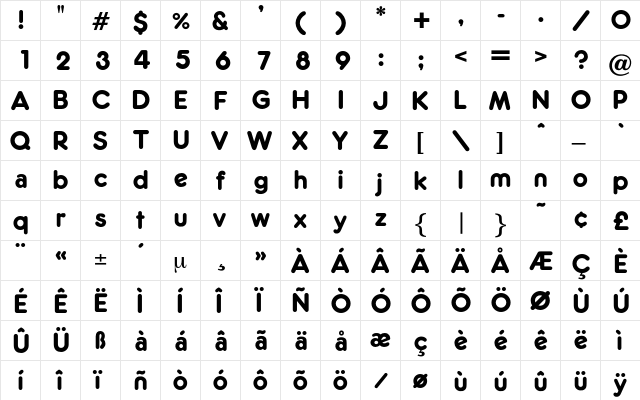
Allgemeine Regular
Design Context for Allgemeine Typeface
Allgemeine offers clean, dependable letterforms without strong stylistic allegiance, making it a practical choice for designers who need flexibility.